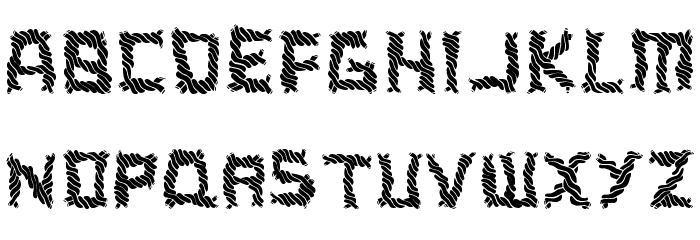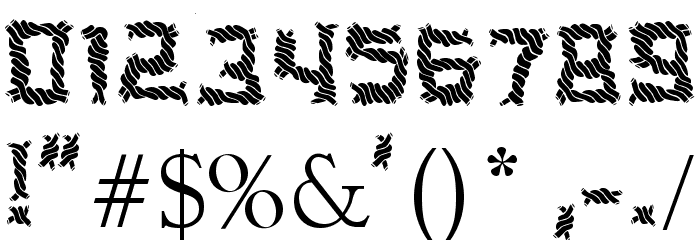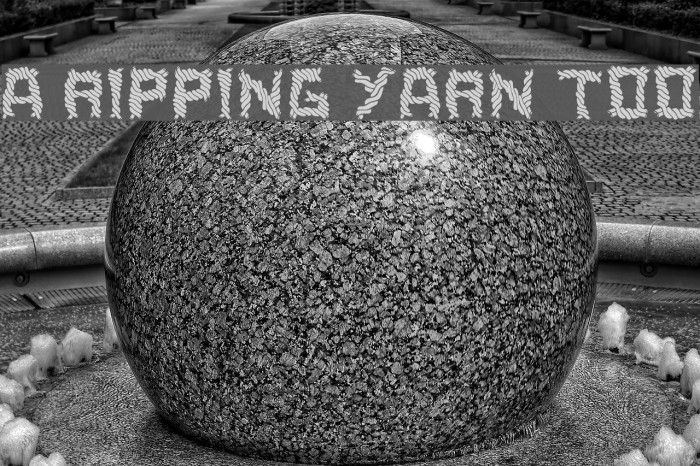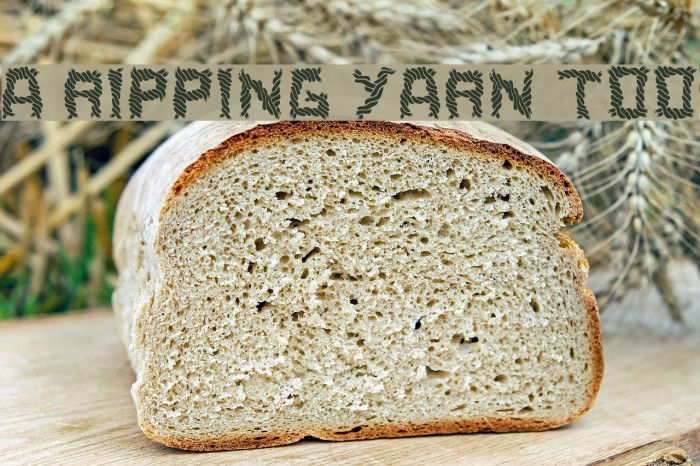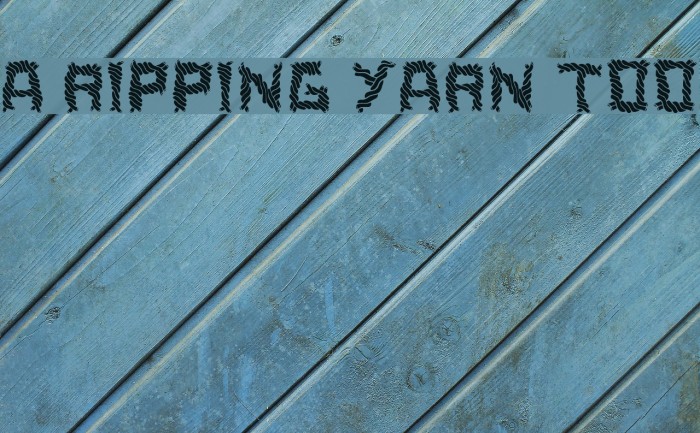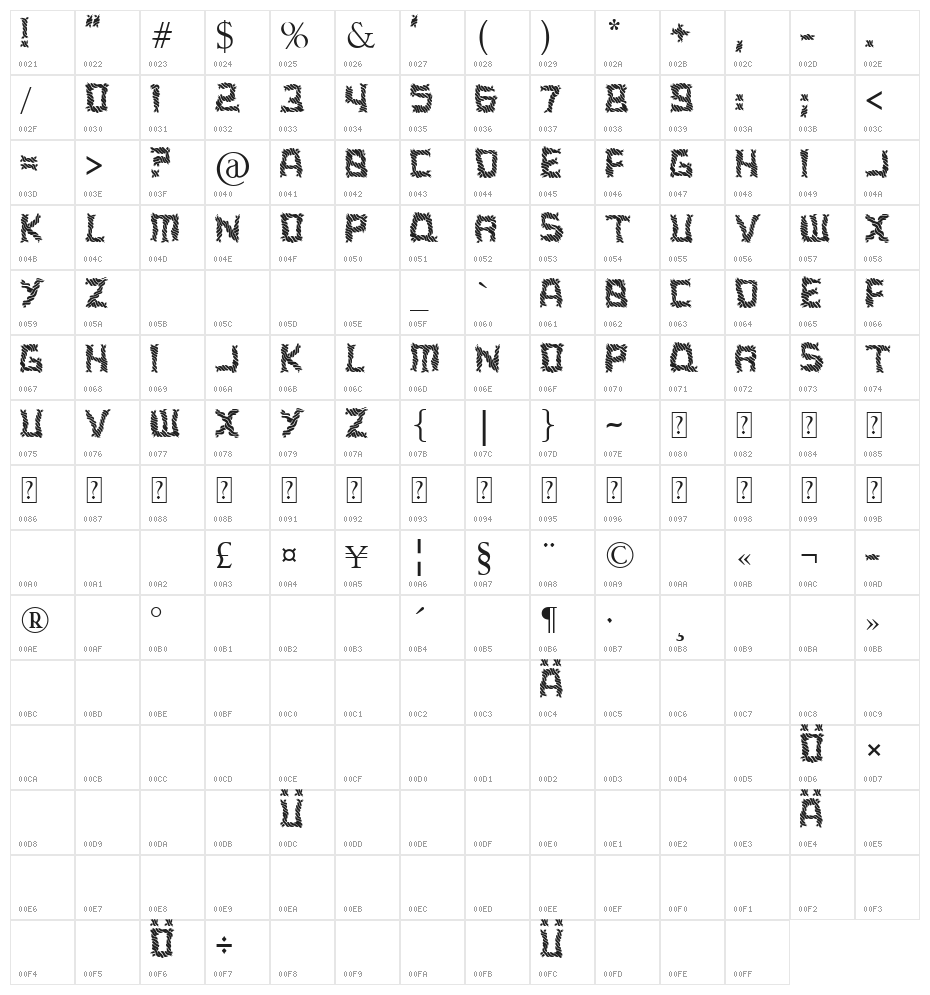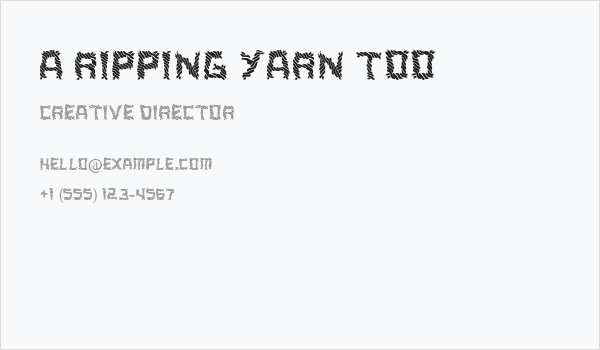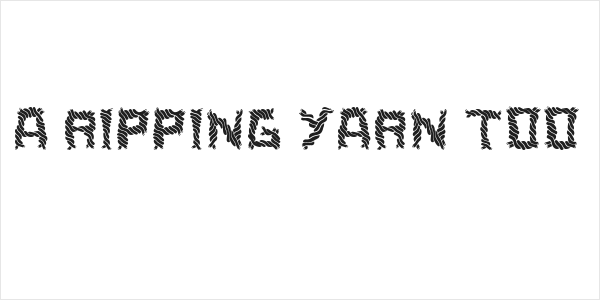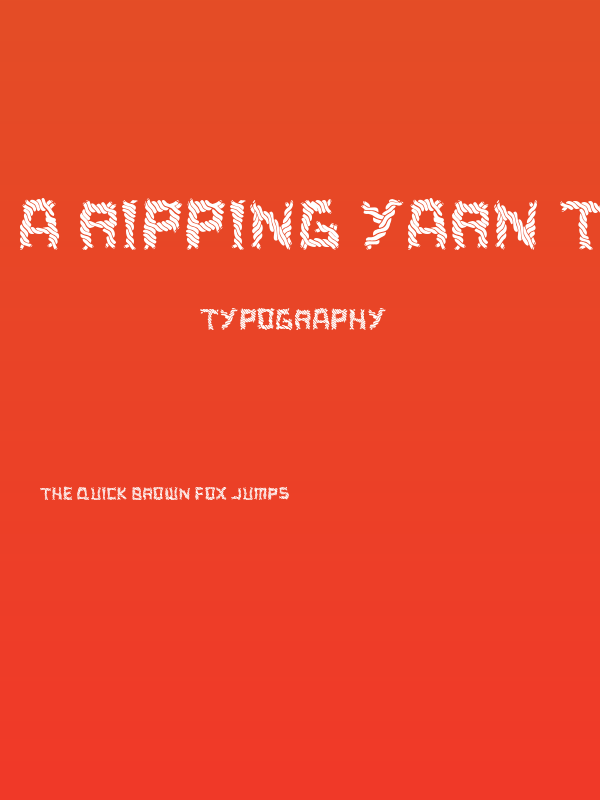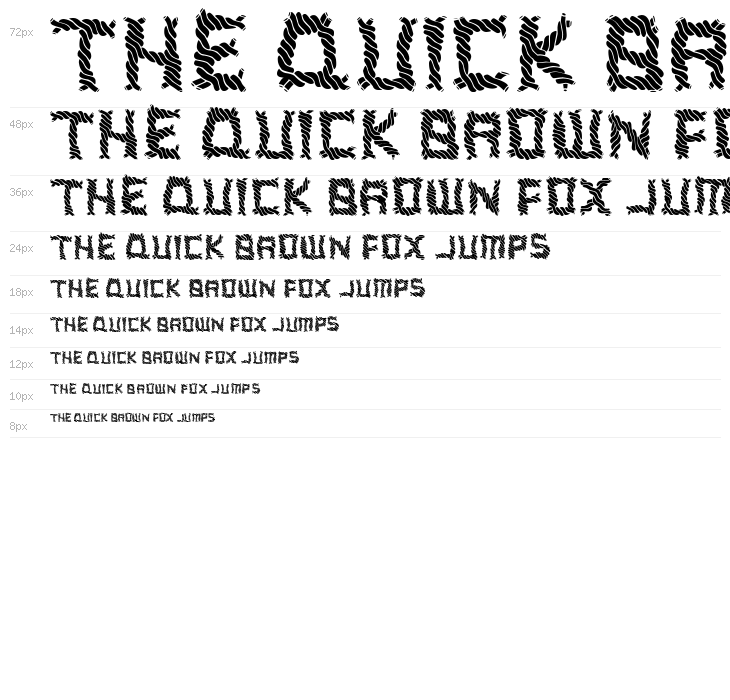
a ripping yarn too Font
This font features a unique, textured design that resembles intertwined threads or ropes, giving it a dynamic and tactile appearance. The characters are bold and robust, with a distinctive pattern that creates a sense of movement and depth. Each letter and number is crafted with a consistent style, maintaining the intricate detailing throughout. The special characters complement the overall aesthetic, adding to the font's versatility. This design is eye-catching and memorable, making it suitable for projects that require a strong visual impact.
A bold, textured font with a rope-like pattern, ideal for striking visual designs.
- Font: a ripping yarn too
- Proposed Projects: Perfect for branding, posters, apparel design, and any project needing a bold, textured aesthetic.